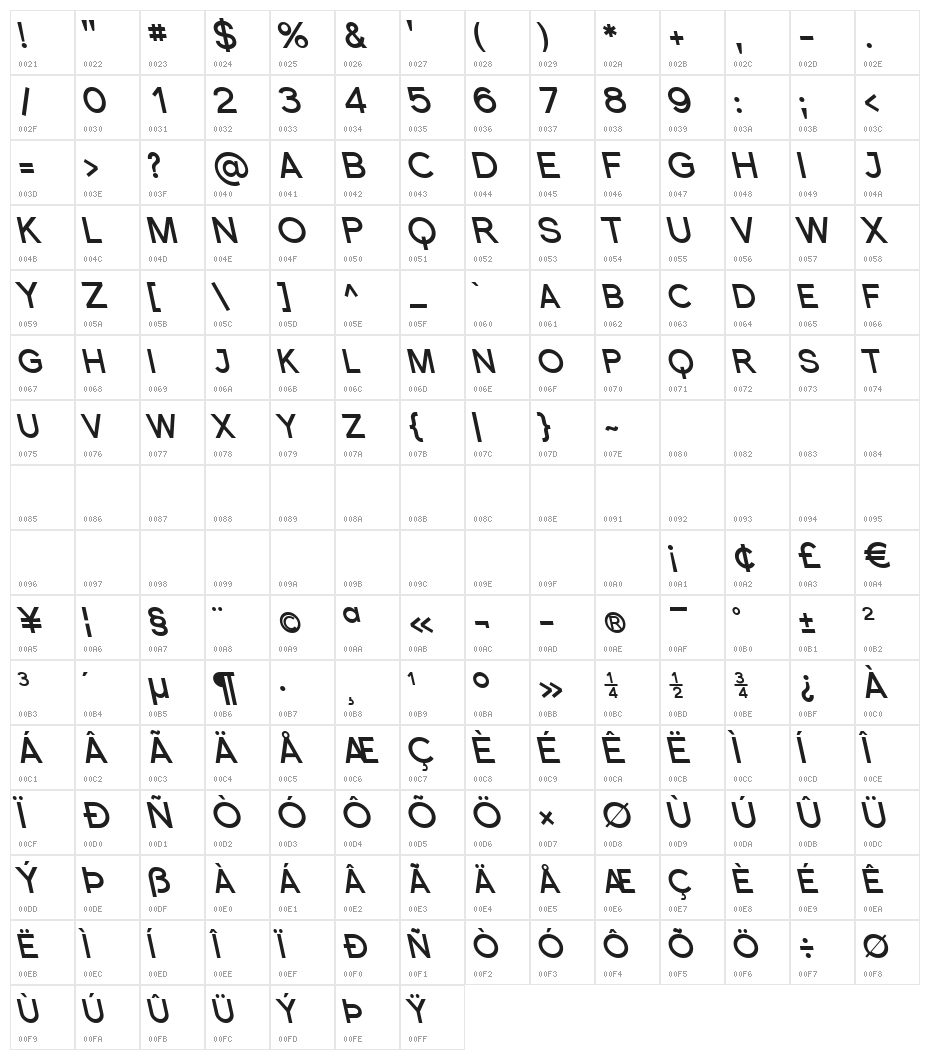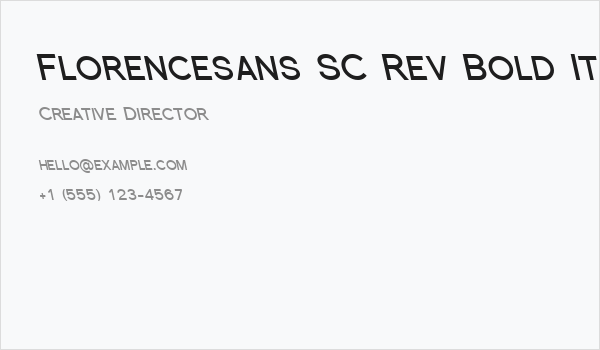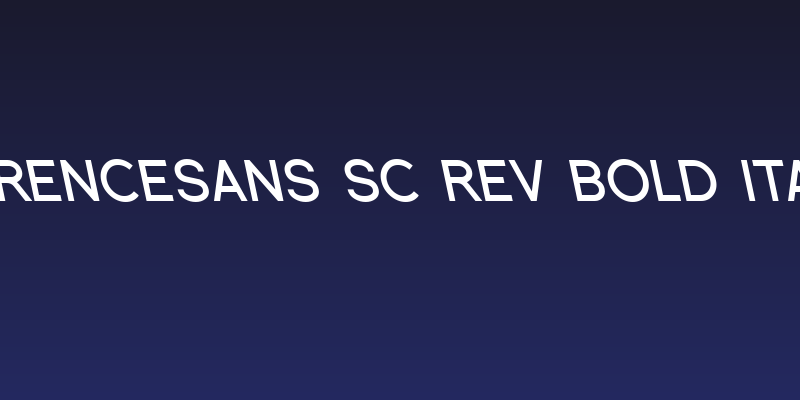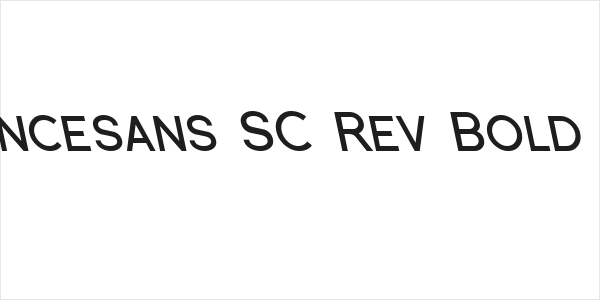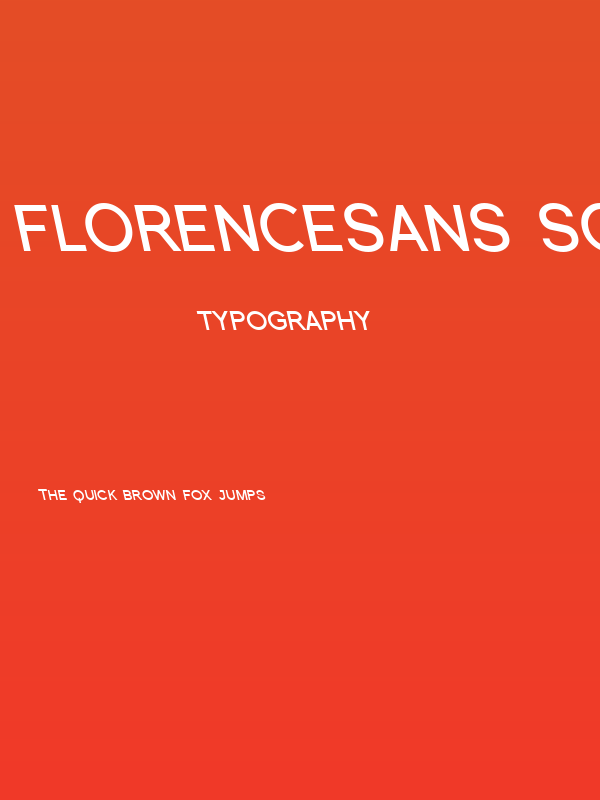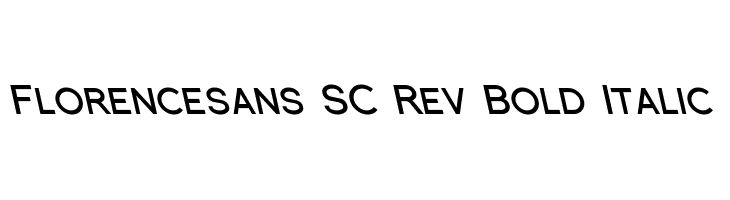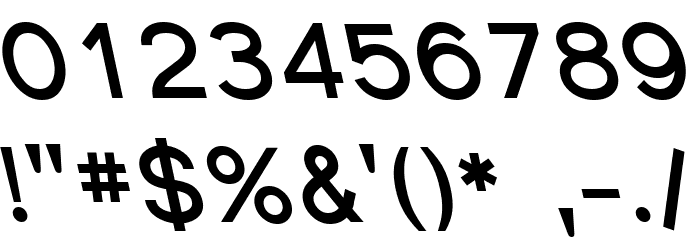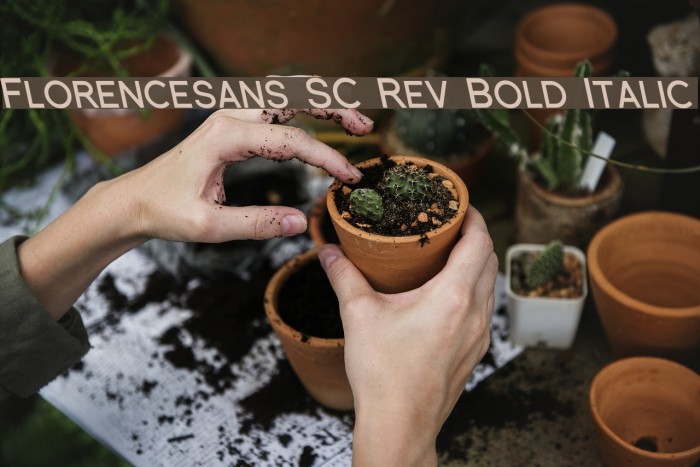
Florencesans SC Rev Bold Italic Font
This font features a bold and italicized style with a modern sans-serif design. The characters are clean and geometric, offering a contemporary look that is both professional and approachable. The uppercase and lowercase letters maintain a consistent weight, providing a balanced appearance. The numerals are straightforward and align well with the overall design, ensuring readability. Special characters are included, enhancing the font's versatility for various applications. The slanted italic style adds a dynamic touch, making it suitable for creative and formal uses alike.
| Proposed Projects | Ideal for branding, advertising, headlines, and digital media projects requiring a modern and bold aesthetic. |